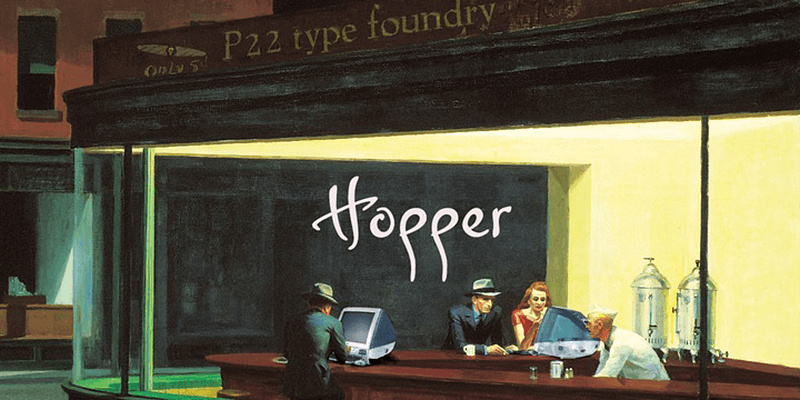
P22 Hopper specimen
P22 Hopper
P22 Hopper Set is based on the handwriting styles of quintessential American artist Edward Hopper and his wife, Josephine Nivison Hopper.